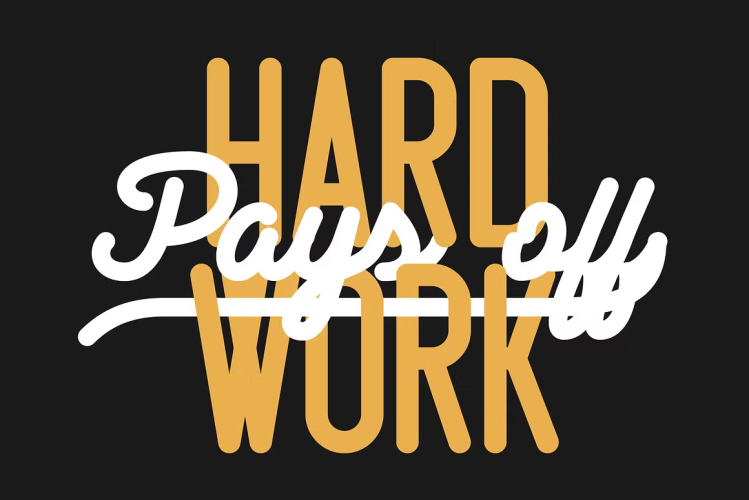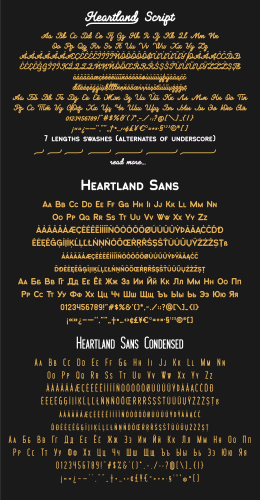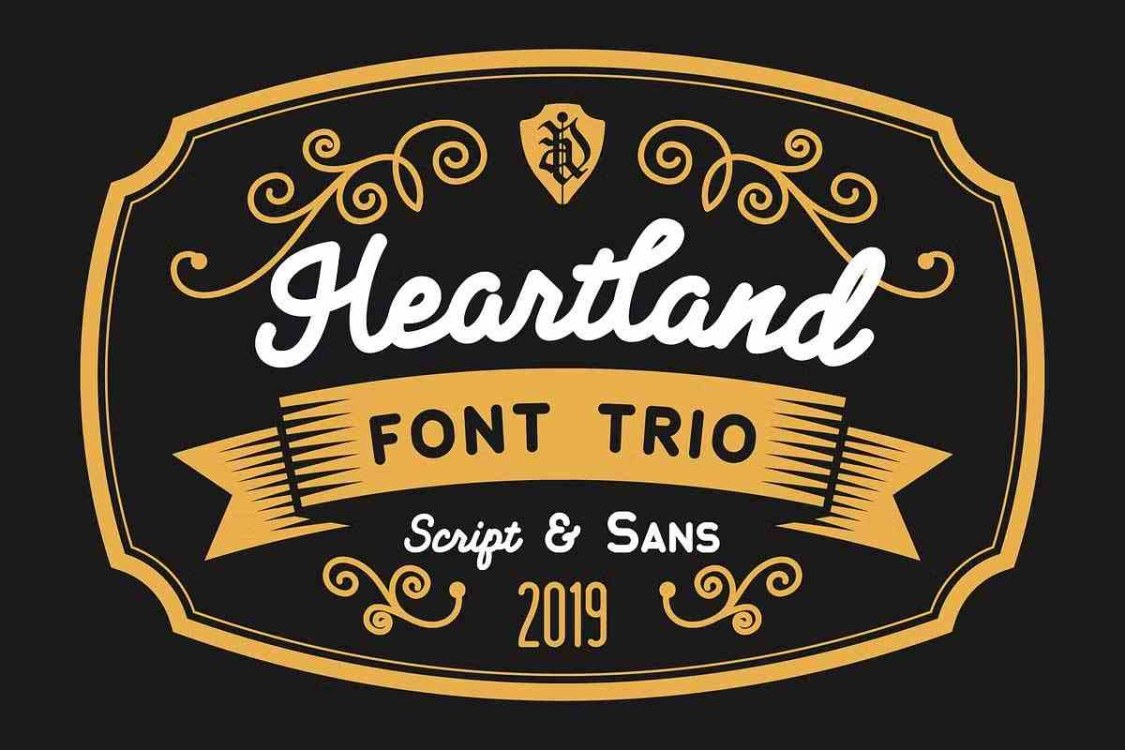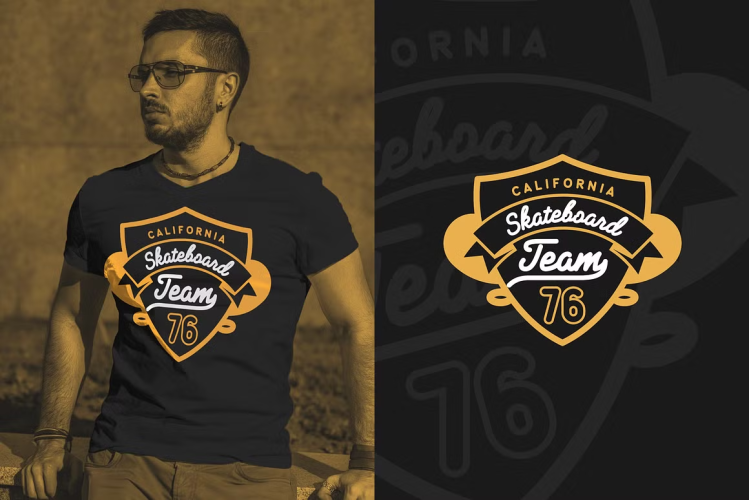
Heartland Font
Heartland font trio is a pack of the bold connected script and pair rounded sans-regular and condensed. Font is excellent for logotype, menu and product labels, prints, posters, branding, social media.
Where Heartland Font works best
Heartland Font brings a personal, handwritten warmth to invitations, menus and place cards.
Craft brands — coffee, cosmetics, bakery — use scripts like Heartland Font for signature-style logos and labels.
Pair Heartland Font with a plain sans for quotes, stories and Pinterest pins that feel handmade.